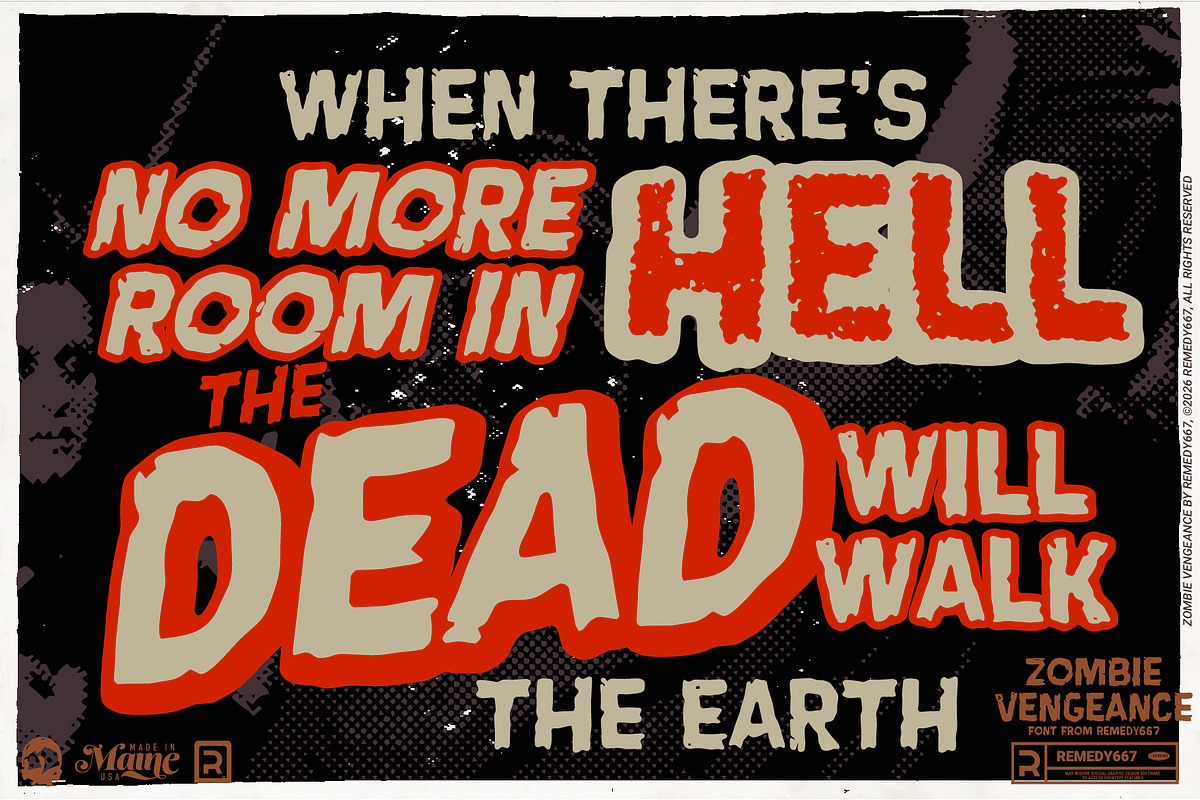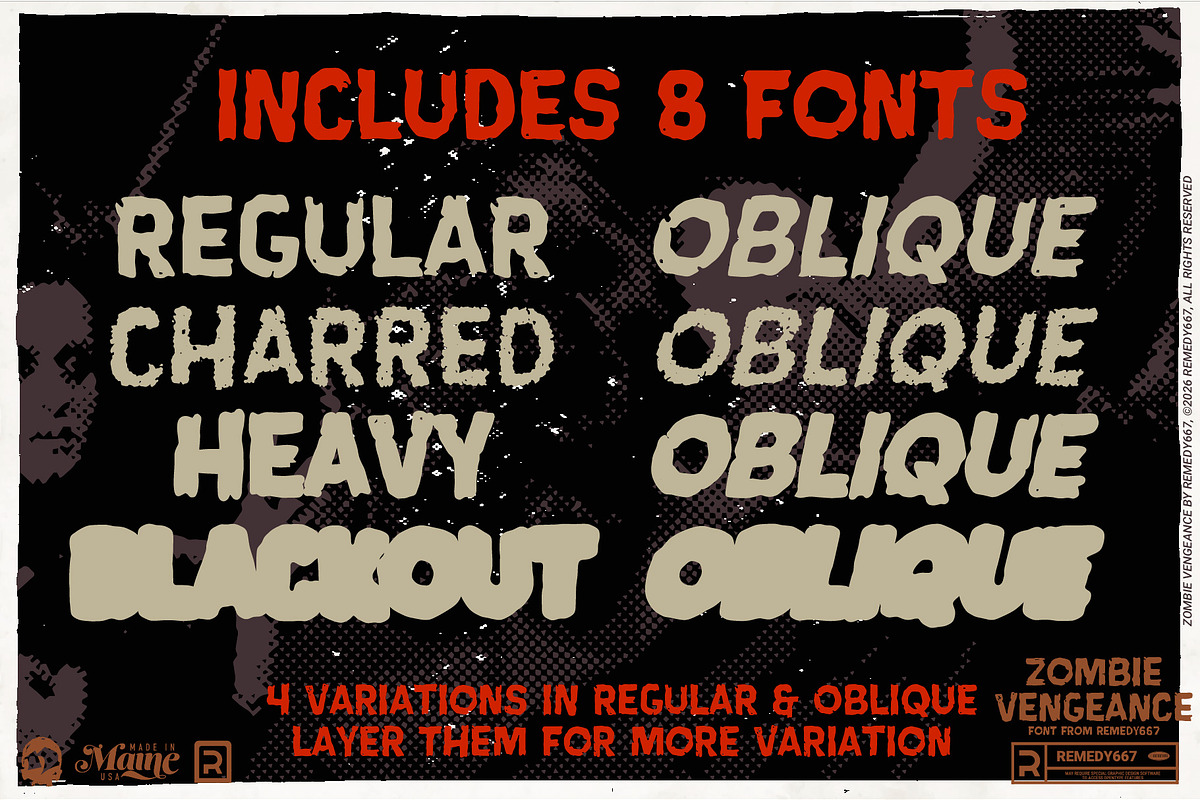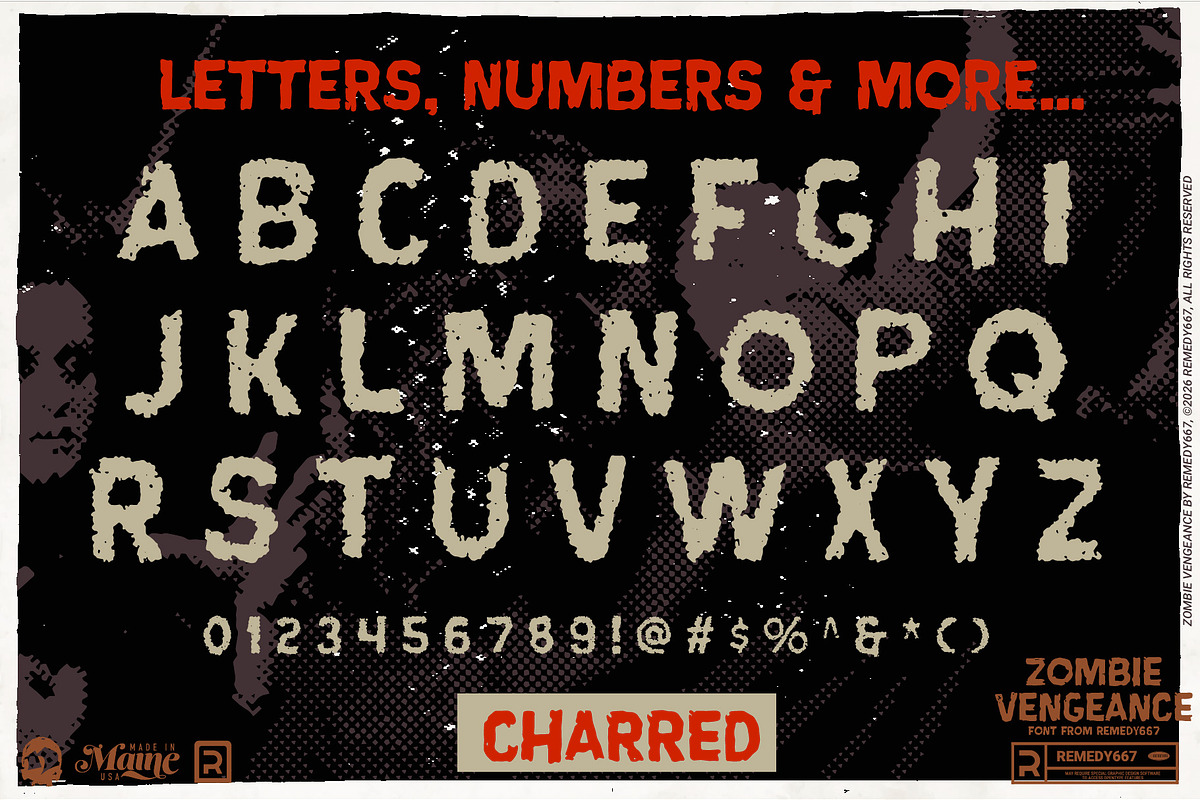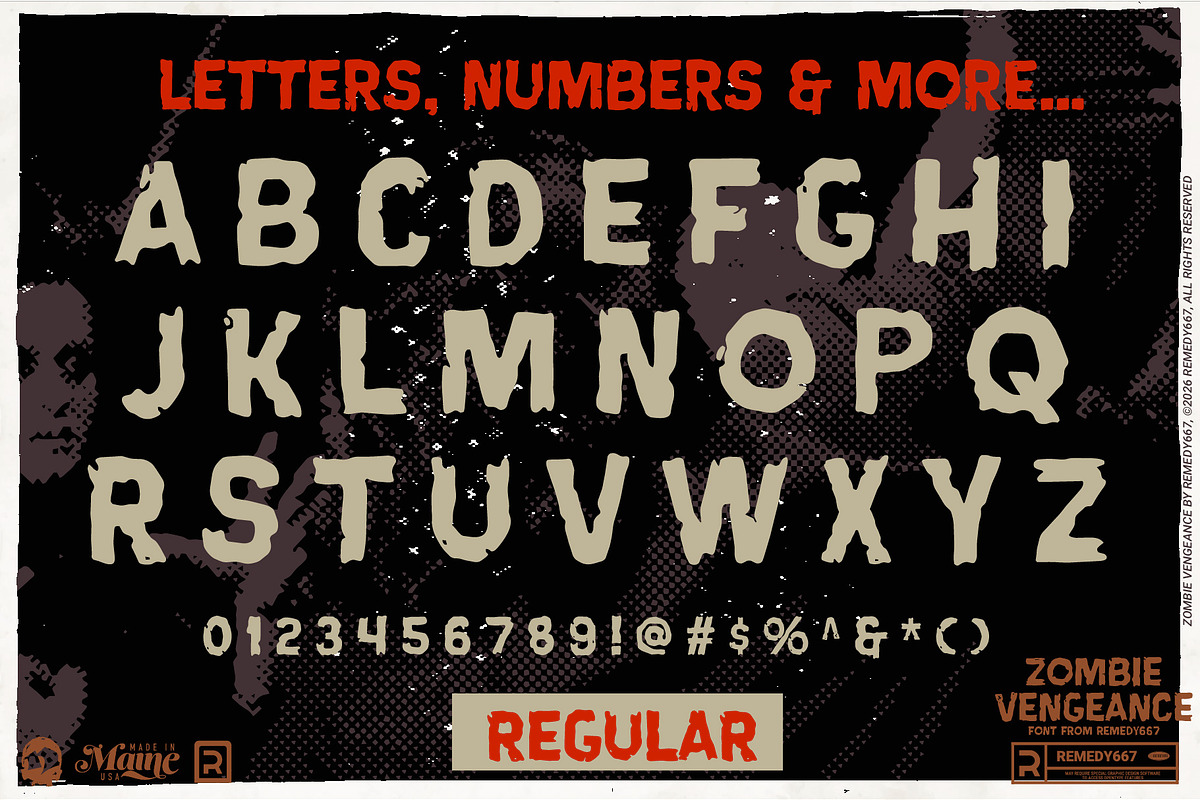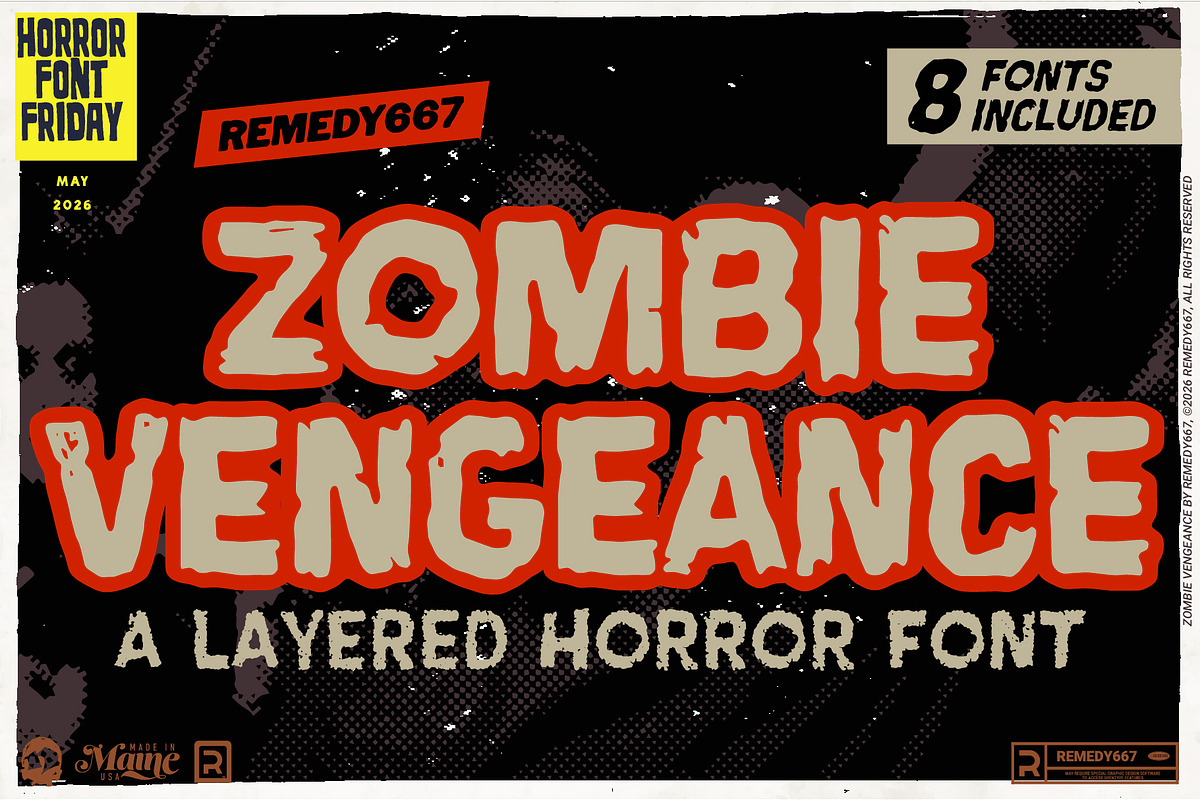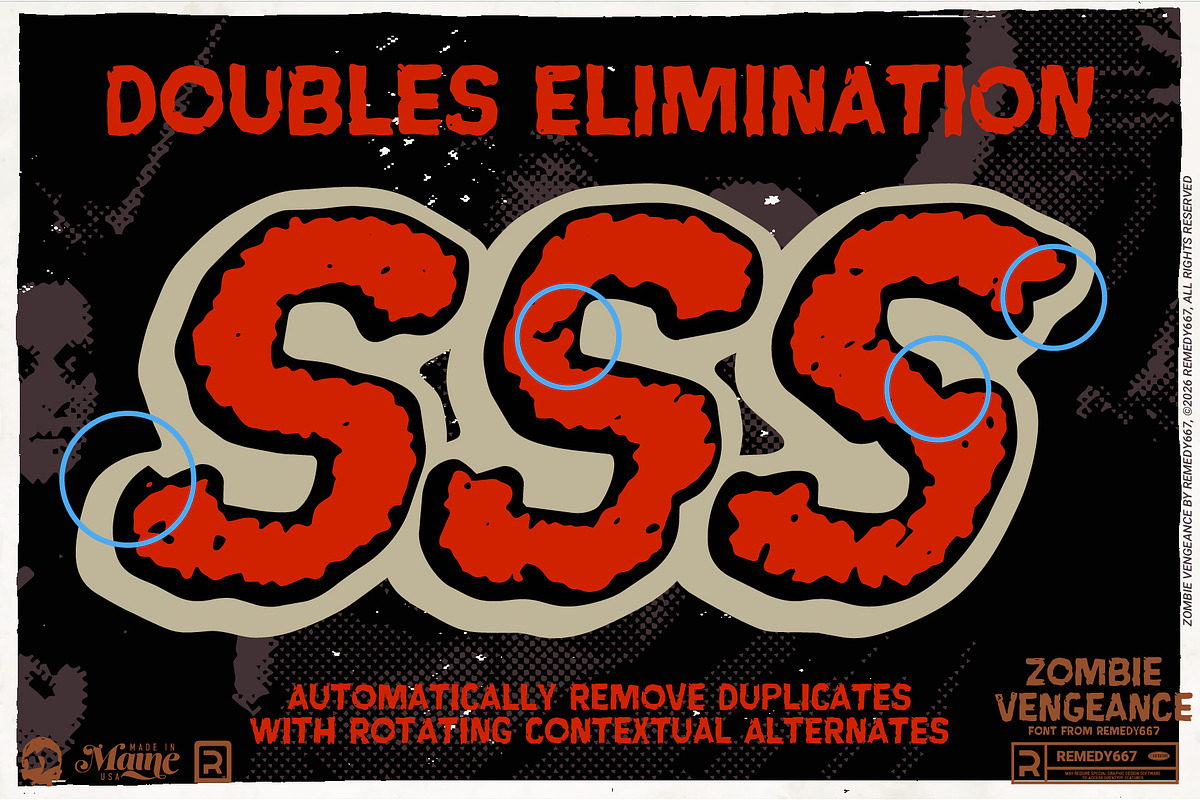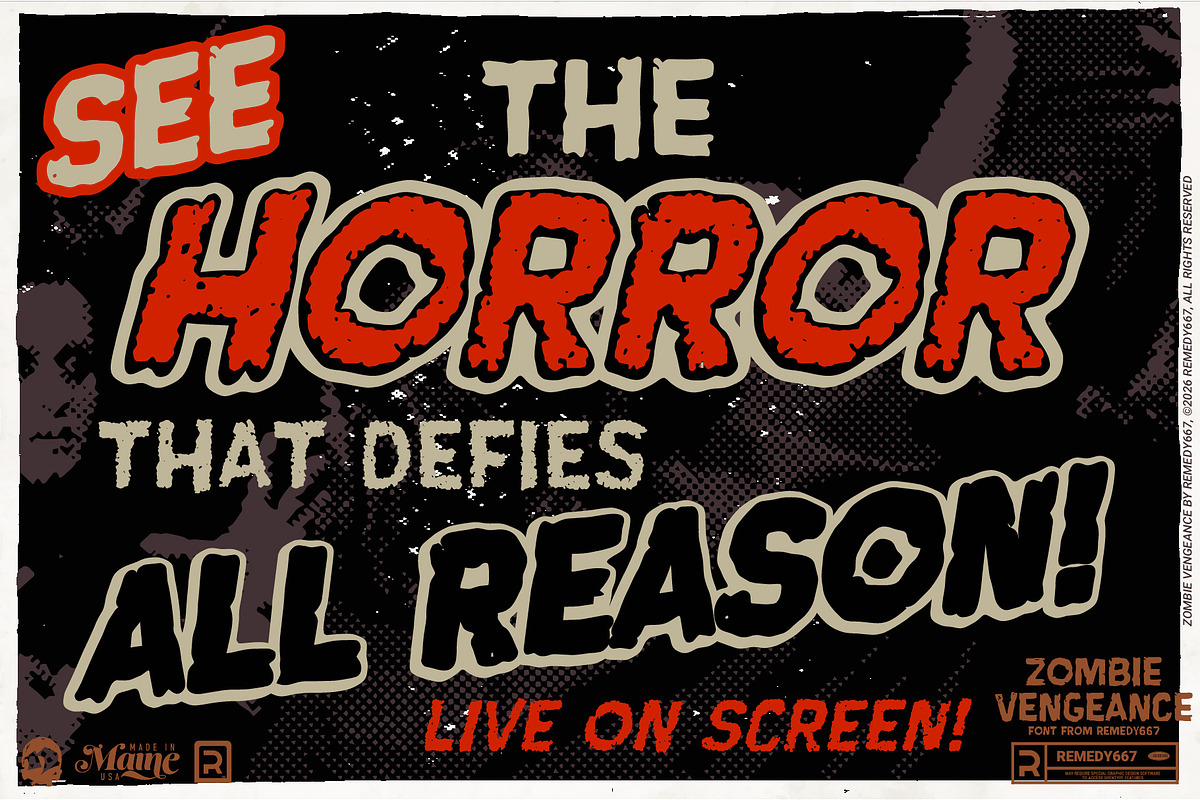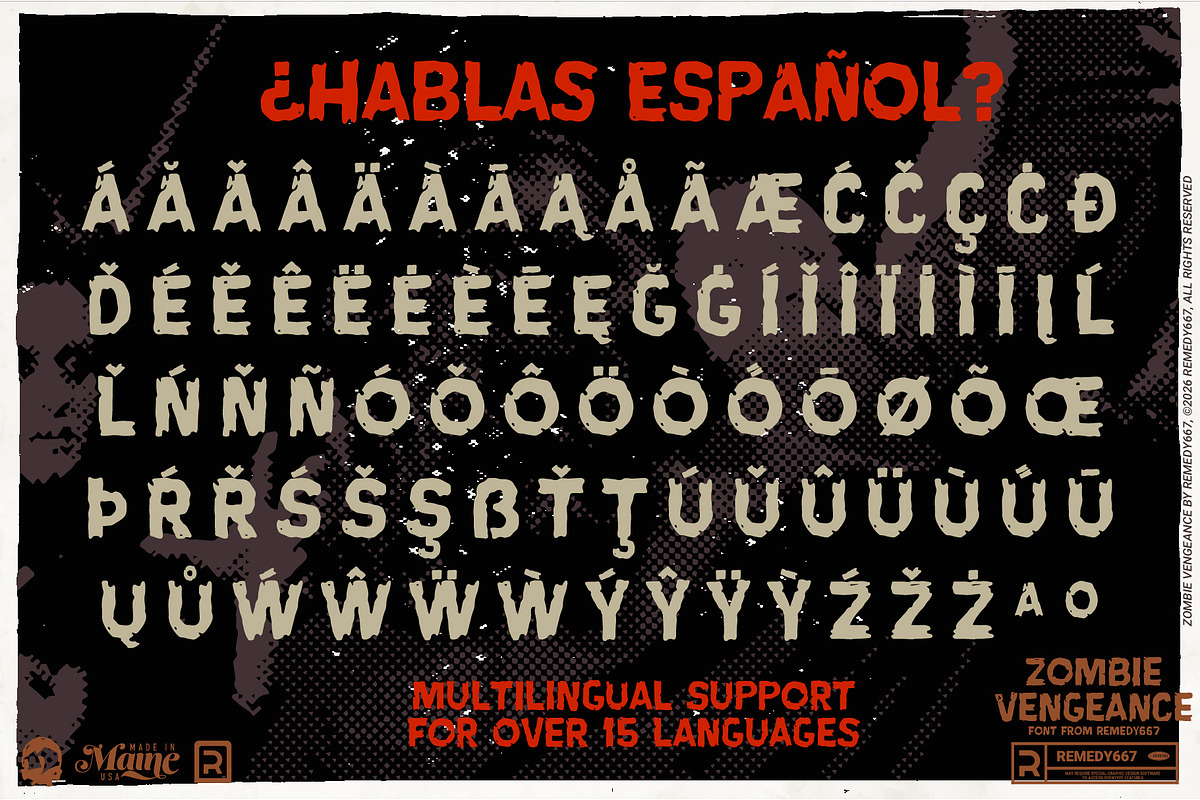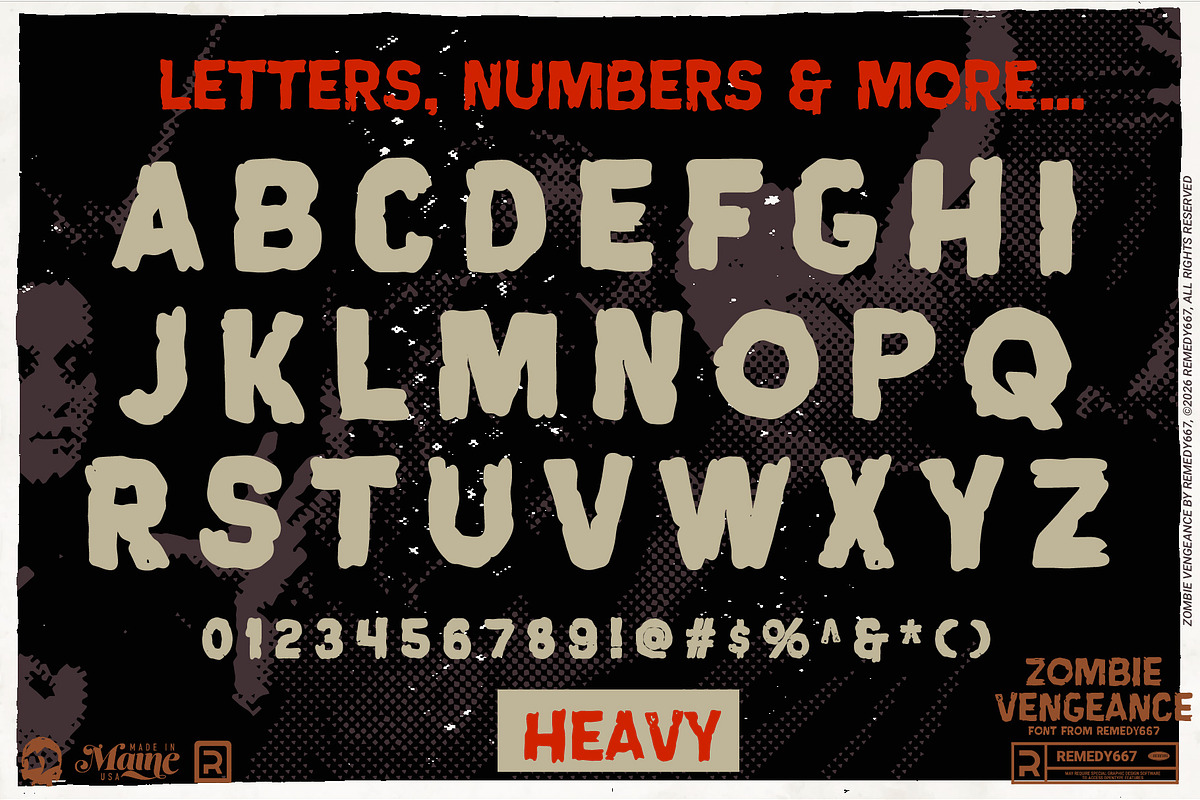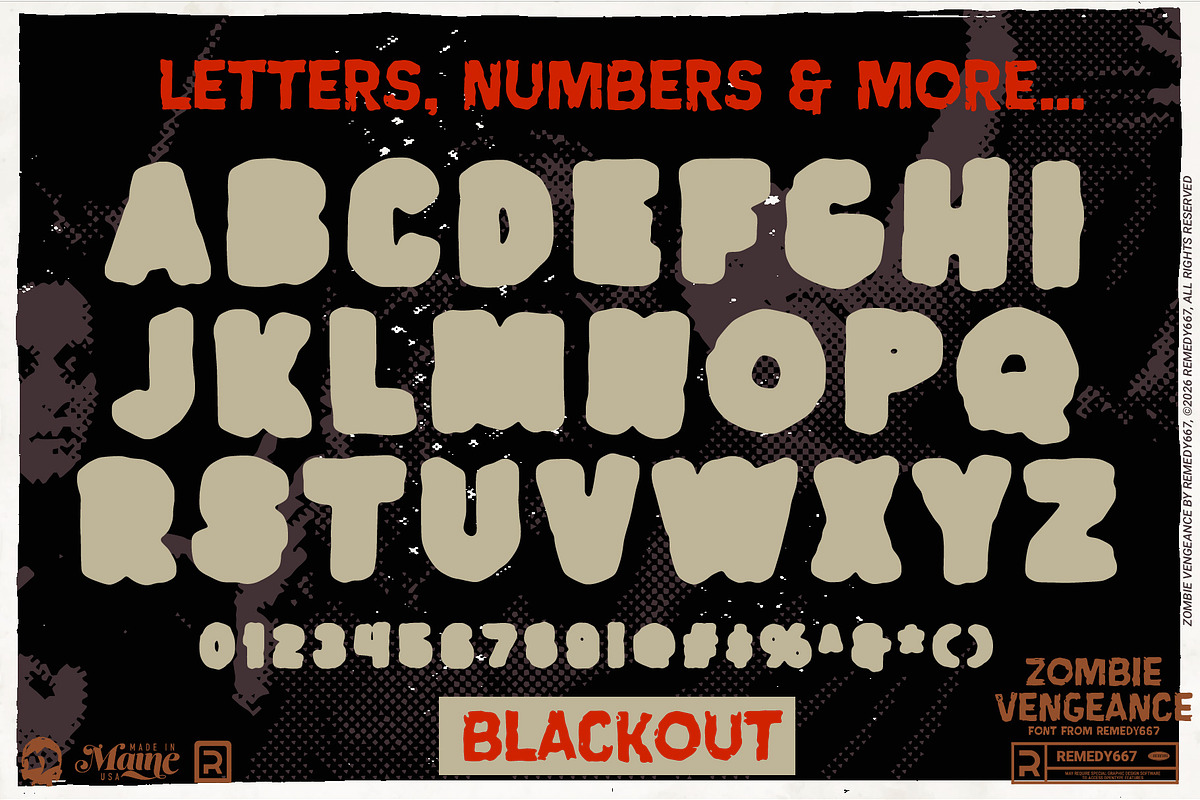
Zombie Vengeance
They thought the dead would stay buried… but Zombie Vengeance persists forever! Ripped from the title screen of Vengeance of the Zombies (1973), this textured terror of typography crawls across your projects with decaying details. Zombie Vengeance feels unearthed, worn, and hungry for fresh layouts to infect.
Built for bold titles, logos, and eerie graphics, Zombie Vengeance is as versatile as it is vicious. Includes 5 fonts you can layer for additional style. Shifting characters bring a natural, hand-rendered chaos to every word, perfect for anyone who wants their font to feel more alive.
Textured, decayed lettering inspired by vintage zombie cinema
5 font styles designed for layering and stacking effects
Rotating characters for more natural, varied typography
Multilingual support for worldwide undead outbreaks